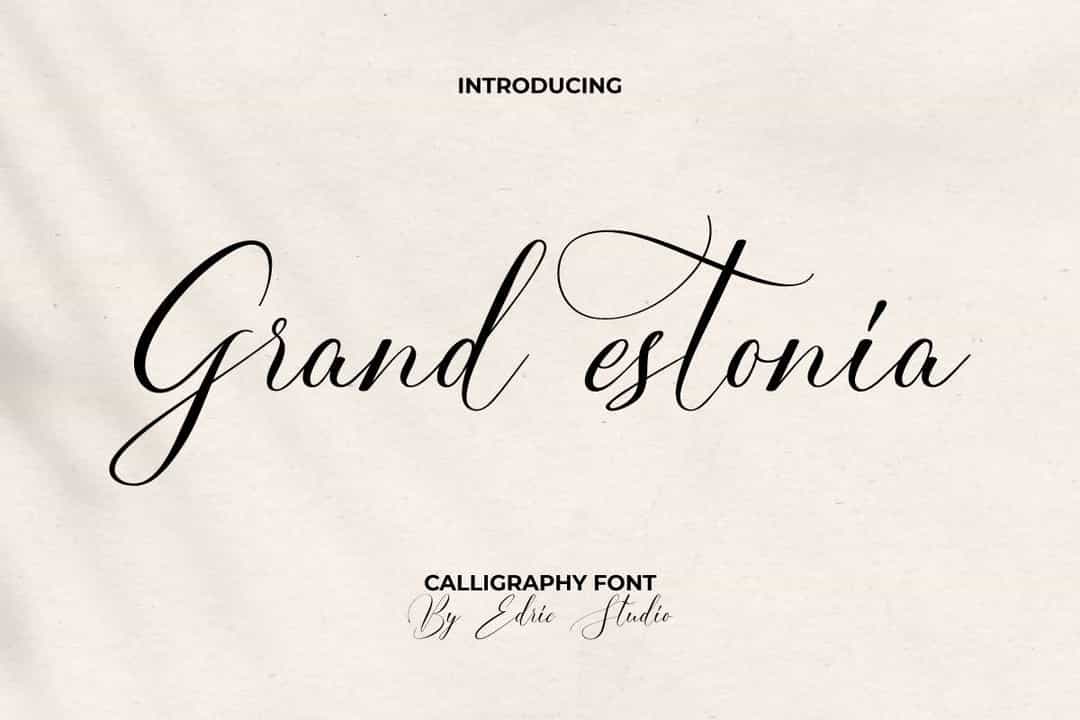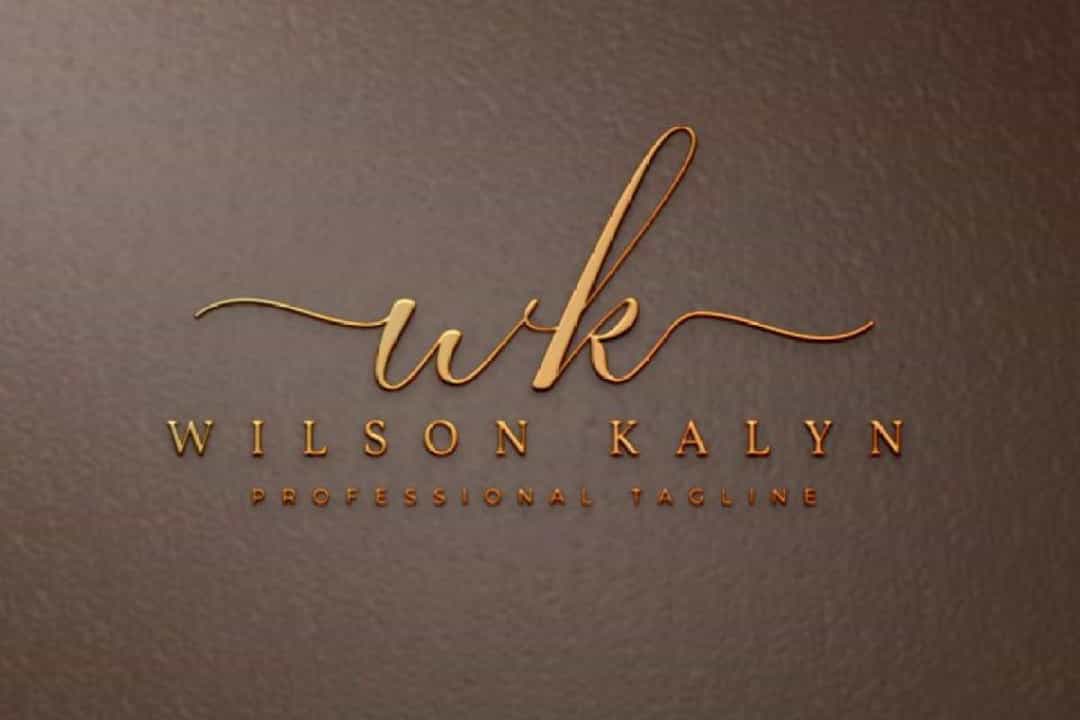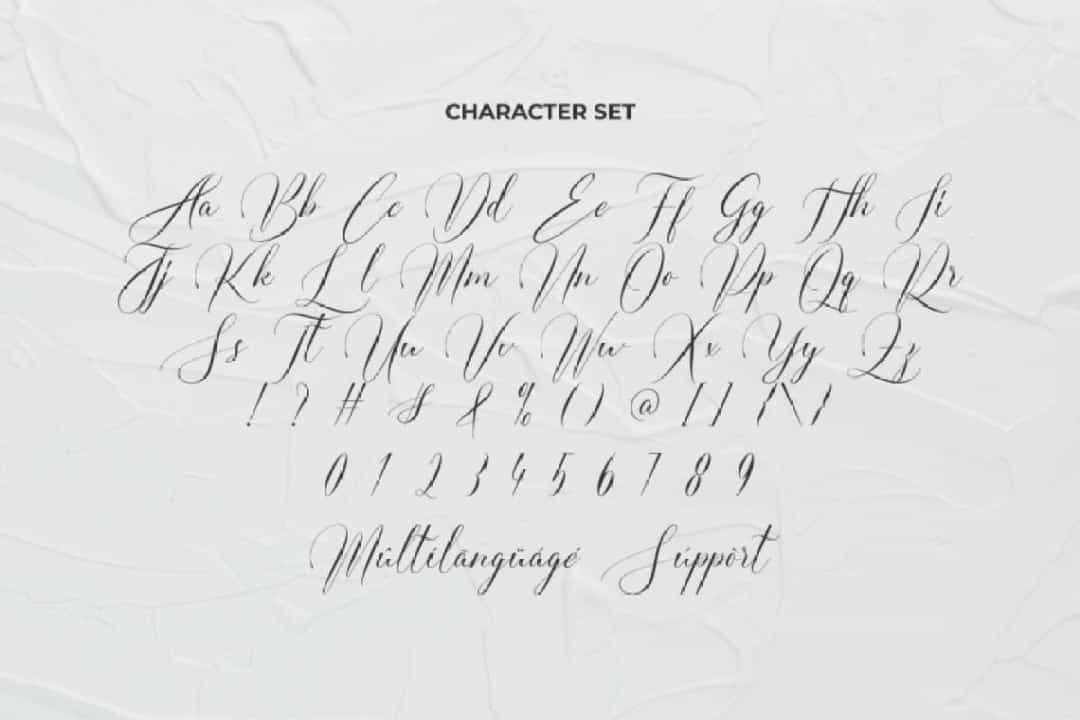
Grand Estonia Script Font was developed at our Studio located in Indonesia and boasts an elegant handwriting style that is simply remarkable. Grand Estonia Calligraphy Font is an exceptional handwritten script typeface with its own distinct look. Featuring stunning characters that are well-controlled by kerning and spacing well. Grand Estonia Calligraphy Font’s design style is both sophisticated and elegant; truly an embodiment of calligraphy style!